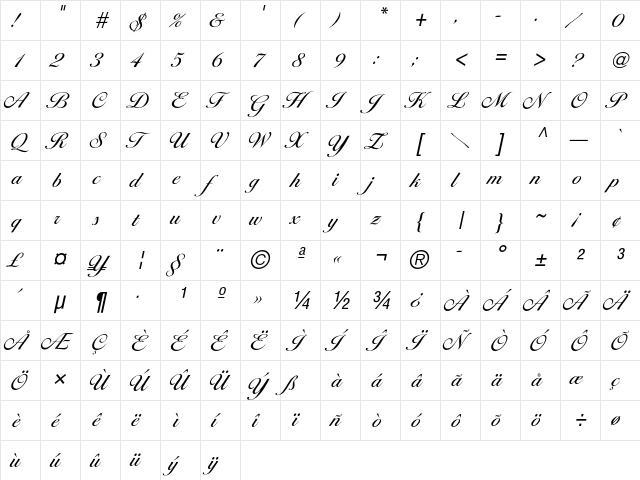
Ballantines Rgl
Design Context for Ballantines Typeface
Ballantines is a composed and adaptable typeface that performs quietly and consistently across a wide range of design contexts.
Pro Tip: Use Ballantines in both headline and body roles to test its range before committing to a single application.